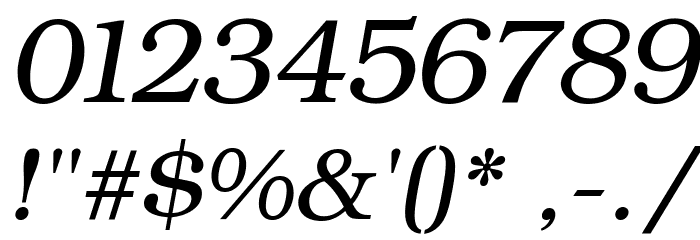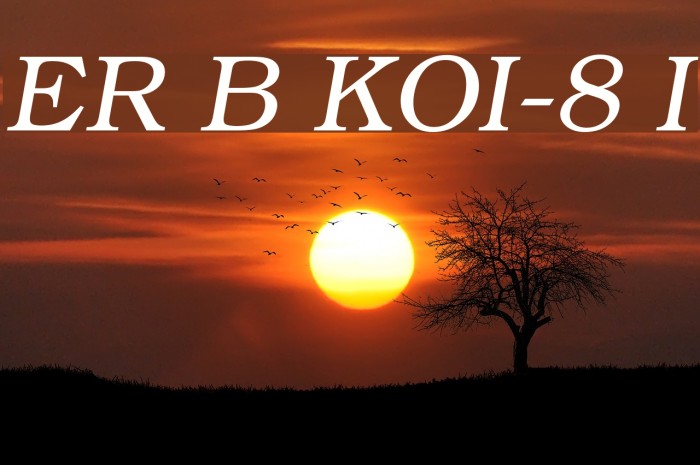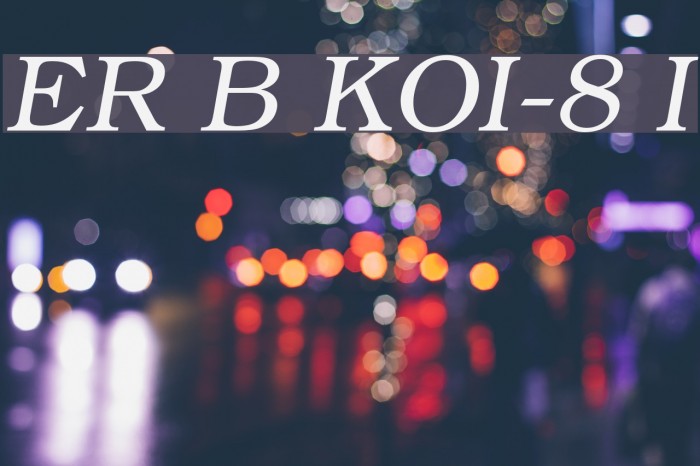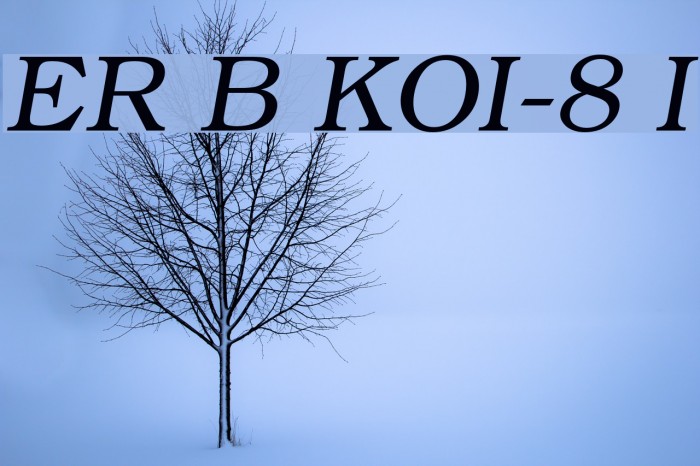
ER Bukinist KOI-8 Italic Font
ER Bukinist KOI-8 Italic Description
This font features a classic serif style with a distinct italic slant, giving it an elegant and sophisticated appearance. The characters are well-defined with moderate contrast between thick and thin strokes, enhancing readability while maintaining a stylish flair. The uppercase letters are slightly taller than the lowercase, providing a balanced and harmonious look. The numerals are consistent with the overall design, ensuring uniformity across different text elements. Special characters are crafted with attention to detail, complementing the font's overall aesthetic. The spacing between characters is normal, allowing for clear legibility without appearing cramped.
An elegant serif italic font with moderate contrast and balanced character spacing from Uncategorized fonts.
- Proposed Projects: Ideal for projects requiring a touch of elegance, such as wedding invitations, formal event programs, or classic book covers.
- Overall Style: Classic